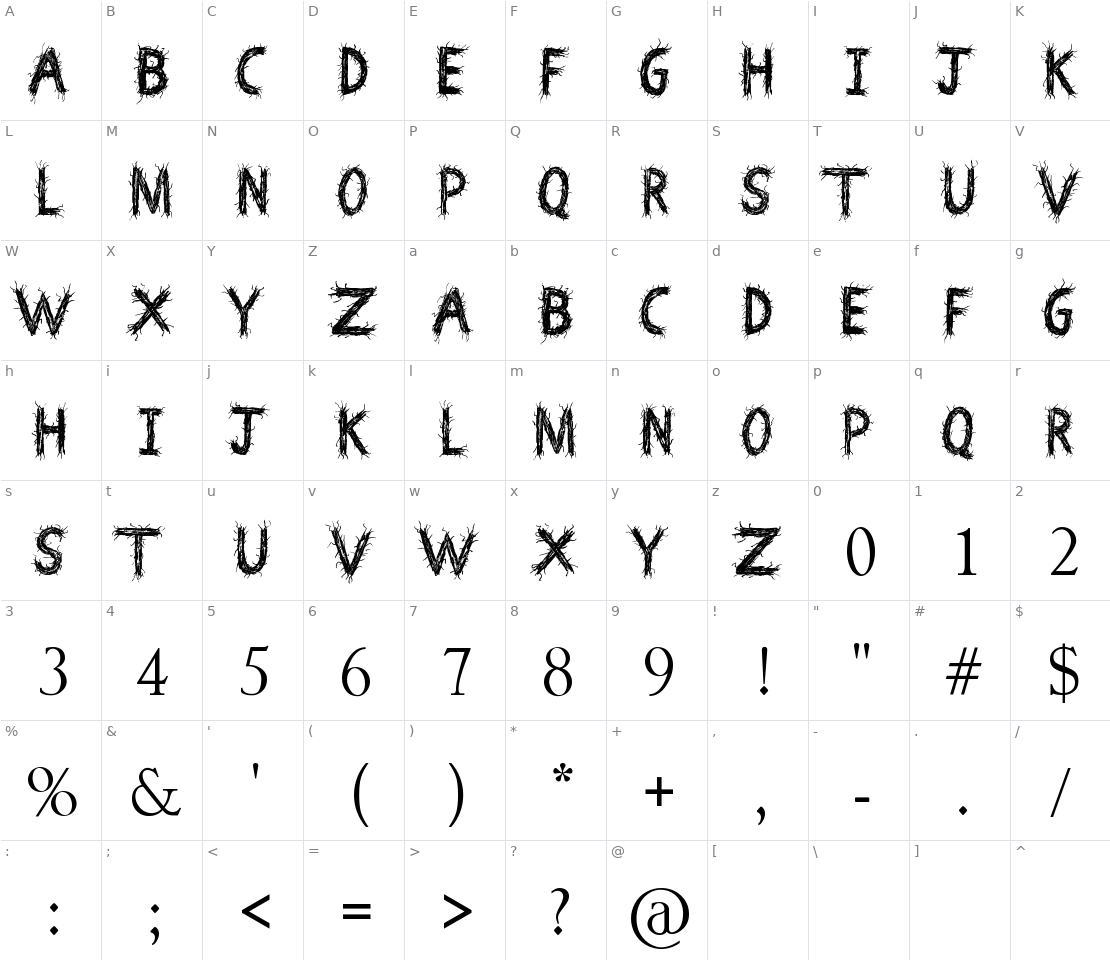
Death Branch
Death Branch is a creepy display face from Jonathan S. Harris where each letterform appears to be constructed from gnarled, thorny branches. The organic, twisted strokes give it a genuinely unsettling quality, like text growing out of a dead forest. Built for Halloween graphics, horror titles, and dark-themed posters where you want type that feels alive in the worst possible way.